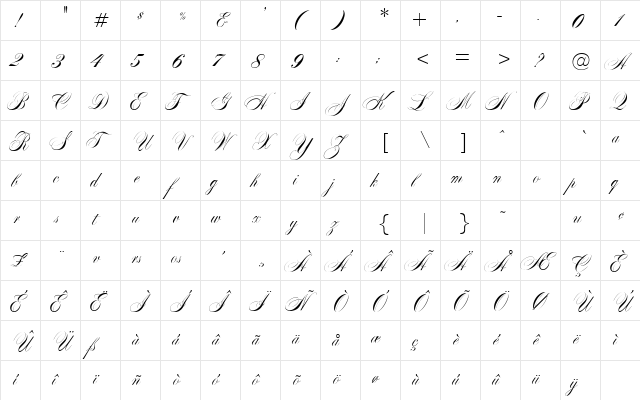
Markiz de Sad script Regular
| Foundry | Alexandra Gophmann |
| Designer | Gophmann A.L |
Design Context for Markiz de Sad script Typeface
Markiz de Sad script flows with the natural rhythm of handwritten lettering, making it ideal for designs that call for warmth and personal expression.
Font Pairing: Combine Markiz de Sad script with a simple geometric sans for maximum contrast — the tension between flowing curves and clean structure is a classic typographic pairing.
Pro Tip: Pair Markiz de Sad script with a clean sans-serif for supporting text. The contrast between fluid script and geometric structure creates an elegant typographic hierarchy.